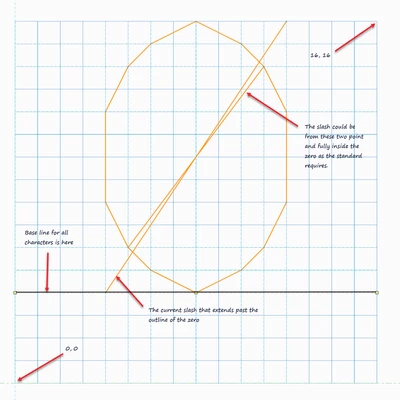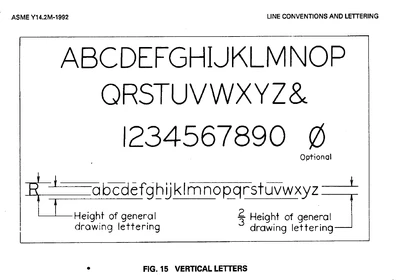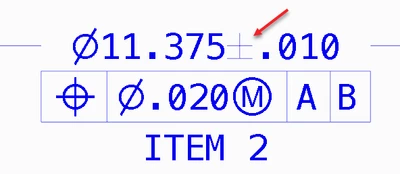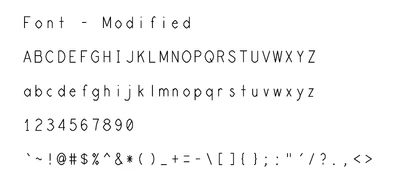
Switching from Stroked Fonts to True Type Fonts - Drawings & Models - Observations & Questions
This is going to be a rather long post, so I’m going to start with the questions I have. Then I’ll get into the issues.
Questions:
• Are stroked fonts machine readable? It was stated to me by one of my compatriots, that for MBE the stroked fonts were not machine readable for downstream applications.
• I’m beginning to doubt this because I can export a pdf with Stroked and Searchable text.
• Also if you look at the stroked_symbol_asme.src file you see that each character has code numbers associated with it.
• Correct me if I’m wrong, but I believe codes are only required for special fonts, all the standard keyboard characters don’t have codes.
• When trying to convert an existing drawing to true type fonts, I can get all the symbols to update to the new font by modifying the parts and assembly files, except for the plus minus symbol.
• Does anyone have a method to update this symbol on an existing drawing?davehaigh_0-1602707327808.png
• The strange thing is, If you create a new drawing, then this symbol displays in the true type font.
• Obviously creating a new drawing is a non-starter when revising existing drawings!
• Does any one have the early PTC documentation on the stroked fonts and how to modify them? I’m talking early 90’s
• At that time they had an illustration in the printed books of the letter grid and talked about how the Move Draw format of the .src was used to draw the character, and how you could modify it and then recompile it.
• The current available docs barely cover this issue and without the illustration. Suggested Technique For Creating Custom Text Fonts
• I do know how to do this, and as you’ll see below I’ve recreated the illustration, but I’d like to review the old documentation to see if there is anything I’ve missed. I lost all my old PTC manuals in the Tubbs fire of 2017.
• Can anyone suggest good mono spaced True Type font?
• We have been considering two fonts:
• Meslo Font
• Consola that you will find here on your windows machine: C:\Windows\Fonts\Consolas
• I’m assuming unlike a stroked font, you can’t change the height to width ratio of a True Type Font. Is that true or not?
• There are times we change the width of some text on a drawing to fit within the title block or BOM cell.
Observations:
Let me start off with what I think my recommendation is going to be. It’s not worth the disruption that is going to be caused to existing drawings to move to true type fonts.
Background
We have ProEngineer and Creo models and drawings going back to early 1990 in our database. A huge amount of data. Almost 100% of that are drawings that may need to be revised or copied for a new design.
Issues with converting to a True Type Font
The problem is PTC didn’t think about this issue in a holistic framework. The conversion of a drawing to a True Type Font depends on not just the settings in the drawing detail setup file, but in the detail settings in the model.
For example I have an assy of two parts that is a weldment. All of these files have to change to use True Type Fonts in the drawing. I would have expected the change in the drawing would have been all that was necessary. That fact that the display in the drawing is linked to the display in the models is a problem. At least the way I think about this it's a problem.
If I go into the drawing detail setup file and modify the default_annotation_font to a .ttf font, and the symbol_font to asme, I get these results.
Notice that the,
• diameter symbols,
• the MMC modifier, and
• the plus minus are still stroked.
I have to open up the model that dimension was shown from, and modify the detail setup file to show the .ttf font and symbol_font as asme.
Which results in all but the plus minus symbol showing correctly in the drawing.
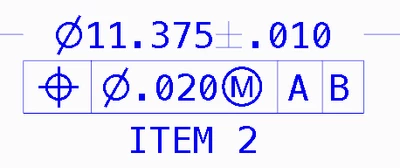
However if I look at a dimension that was shown from the other part in the weldment, it’s still messed up.
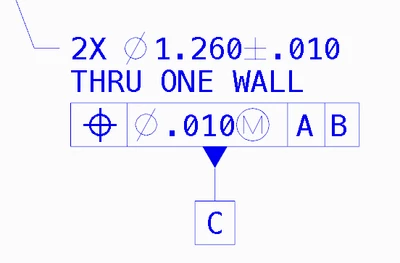
I have to go modify that part’s detail setup file also, after which I get this. But I know of no way to get the Plus Minus symbol to update to the True Type Font. GRRRRR!
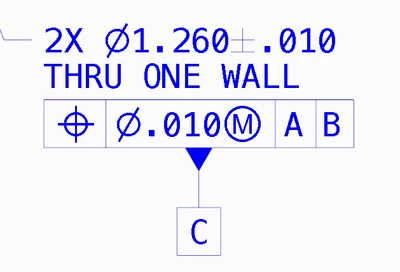
If I create a new drawing and show that dimension, then it shows the Plus Minus in the .ttf font.
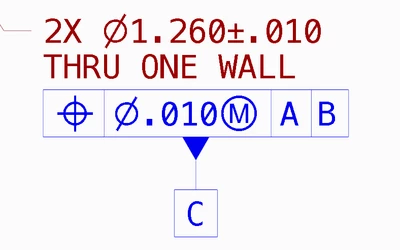
So instead of just changing the settings in the model, I have to change the settings, in this case. on 2 parts, 1 assy, and the drawing assuming there is a workaround for the Plus Minus Symbol. If not then I have to create a new the drawing in order to get that symbol to change to a True Type Font.
One thing I haven't figured out is a way to quickly change the format font.  I'm not sure it can be done to be honest.